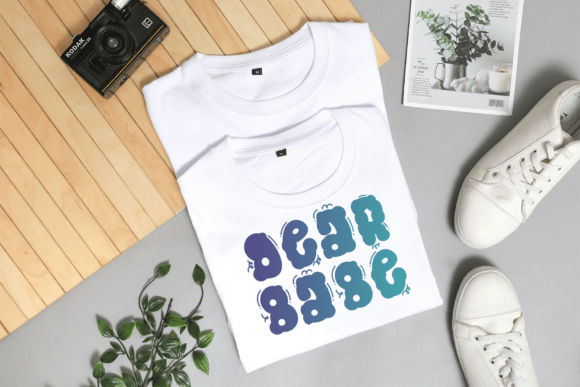
Introducing Shaking Loving Font: The Quirky Display Font that Radiates Charm and Sophistication
What is Shaking Loving Font?
Shaking Loving Font is a unique display font that has been designed to add a touch of whimsy and elegance to any design project. With its smooth curves and playful feel, this font is perfect for creating visually appealing websites, posters, logos, and more. Its quirky charm makes it an excellent choice for designers who want to add a bit of personality to their work.
Key Features of Shaking Loving Font
- Quirky and Playful Design: Shaking Loving Font boasts a unique and playful design that sets it apart from other fonts.
- Smooth Curves: The font features smooth curves that give it a sophisticated and elegant look.
- Display Font: Shaking Loving Font is a display font, making it perfect for headlines, titles, and other display purposes.
- Versatile: This font can be used for a wide range of design projects, including websites, posters, logos, and more.
Reasons to Choose Shaking Loving Font
- Uniqueness: Shaking Loving Font is a one-of-a-kind font that will make your design stand out from the crowd.
- Emotional Connection: The playful and quirky design of this font creates an emotional connection with the viewer, making it perfect for brands that want to convey a sense of friendliness and approachability.
- Flexibility: Shaking Loving Font can be used for a wide range of design projects, from websites and posters to logos and packaging.
- Ease of Use: This font is easy to read and understand, making it perfect for designs that require a clear and concise message.
How to Use Shaking Loving Font?
Using Shaking Loving Font is easy and straightforward. Here are a few tips on how to get the most out of this amazing font:
Tips for Using Shaking Loving Font
- Pair it with Other Fonts: Shaking Loving Font can be paired with other fonts to create a unique and visually appealing design.
- Experiment with Colors: The font looks great in a variety of colors, so don’t be afraid to experiment and find the perfect color scheme for your design.
- Use it for Headlines and Titles: Shaking Loving Font is perfect for headlines and titles, but it can also be used for body text and other design elements.
In conclusion, Shaking Loving Font is a quirky display font that radiates charm and sophistication. With its smooth curves and playful feel, it’s perfect for websites, posters, logos, and so much more. Whether you’re a designer, entrepreneur, or small business owner, this font is sure to make your design project stand out from the crowd.